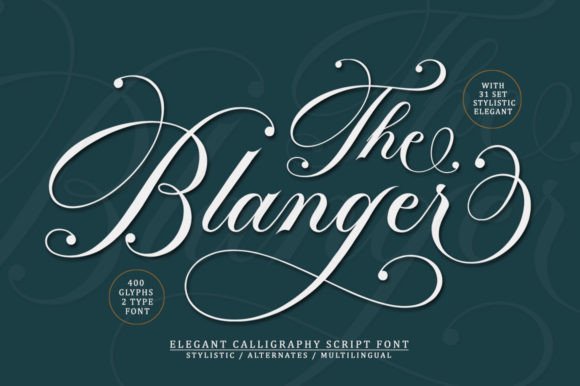
Introducing The Blanger Font, a stunning addition to our collection of Best Fonts For Wedding Invites. Created by Mastertype, this elegant script font is sure to captivate and inspire.
What makes The Blanger Script truly unique is its perfect blend of classic charm and modern flair. With its beautifully crafted characters, this font exudes elegance and sophistication. Its clean lines and intricate details make it a standout choice for any design project.
The Blanger Script is more than just visually appealing - it evokes a range of emotions. It is feminine, sensual, and glamorous, making it perfect for creating a romantic atmosphere. The font's simplicity adds a touch of refinement, while its easy readability ensures that your message will be effortlessly communicated.
This versatile font is not limited to wedding invites. Its classic style lends itself well to a variety of formal applications. Imagine using it on restaurant menus, fashion labels, makeup packaging, or even in your next novel or magazine. The Blanger Script adds a touch of sophistication to any project and elevates it to the next level.
A standout feature of The Blanger Script is its luxurious letter connections. Each character flows seamlessly into the next, creating a harmonious and visually stunning effect. This attention to detail sets it apart from other fonts and makes it a standout choice for any design.
With The Blanger Script, the possibilities are endless. Whether you're designing greeting or wedding cards, book covers, or advertisements, this font will elevate your project and leave a lasting impression on your audience.